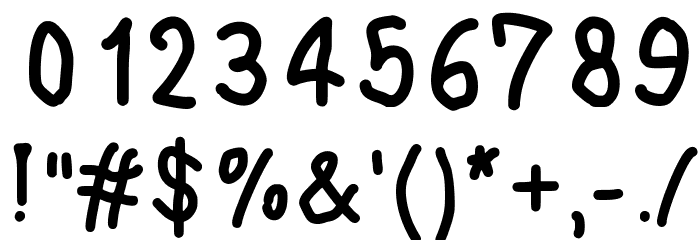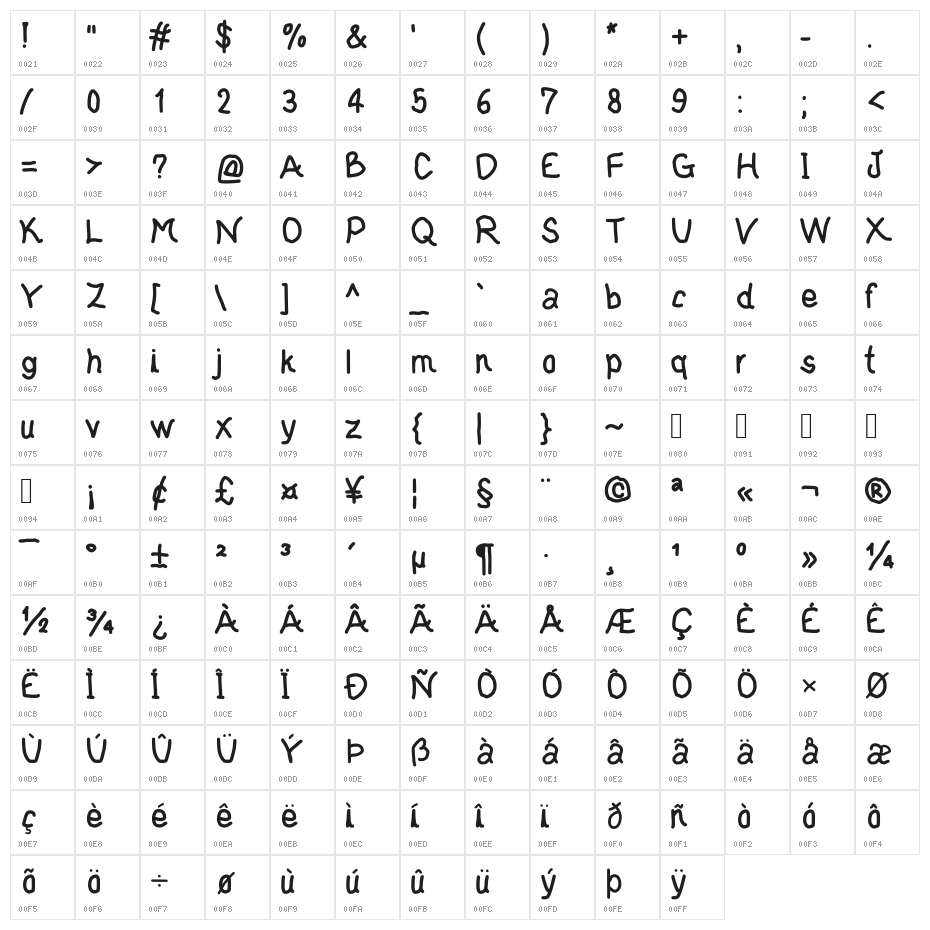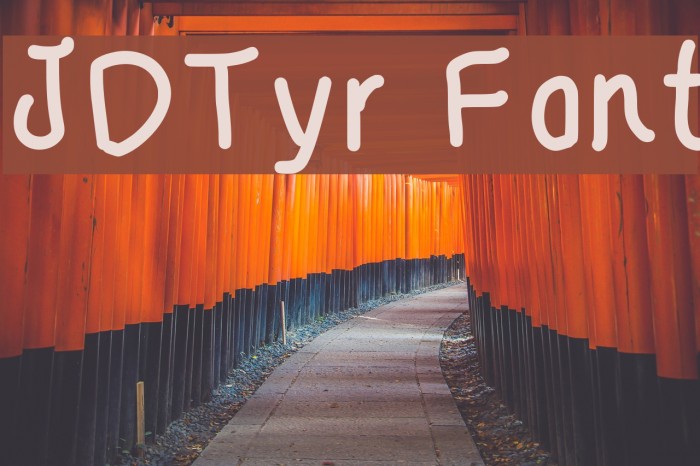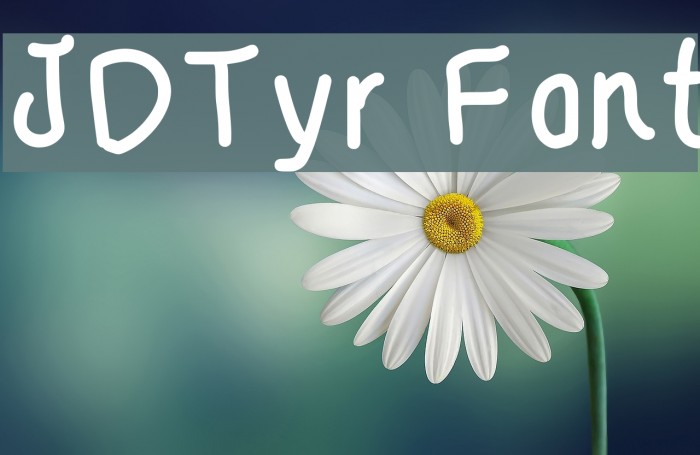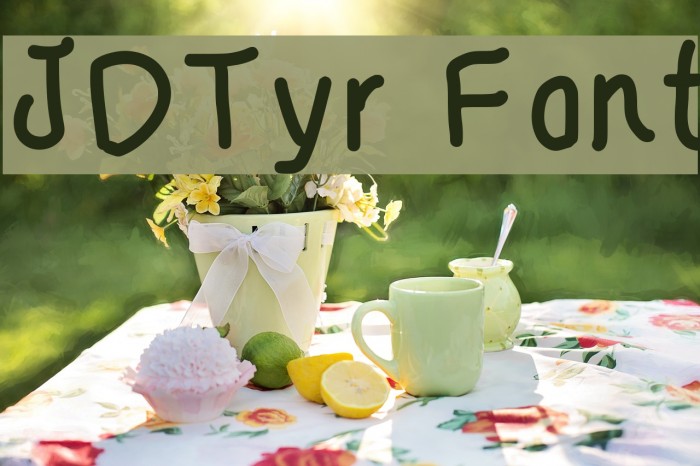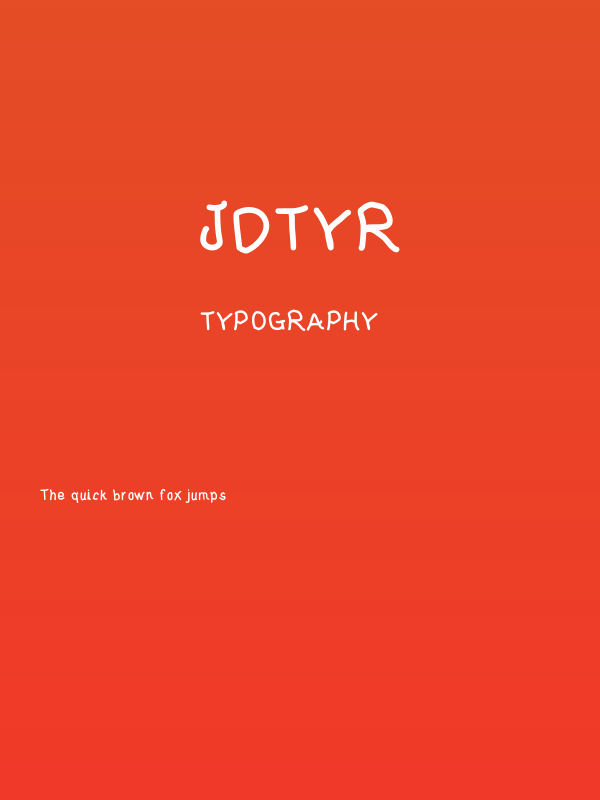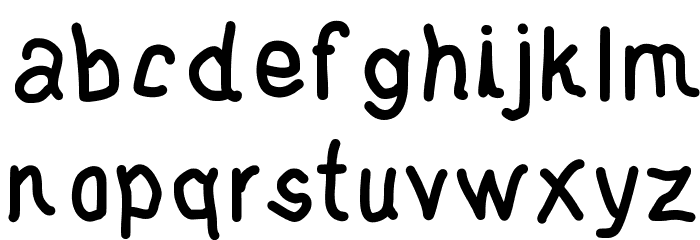
JDTyr Font
JDTyr Description
This playful and whimsical font features a handwritten style with a casual and informal appearance. The characters are slightly irregular, giving it a personal touch that mimics natural handwriting. The strokes are rounded and smooth, contributing to its friendly and approachable feel. The font maintains a consistent weight throughout, with medium contrast between thick and thin strokes. It is well-suited for projects that require a touch of personality and creativity, such as children's books, greeting cards, or casual branding materials. The character spacing is normal, ensuring readability while retaining its unique charm.
| Proposed Projects | Ideal for children's books, greeting cards, casual branding, and creative projects. |